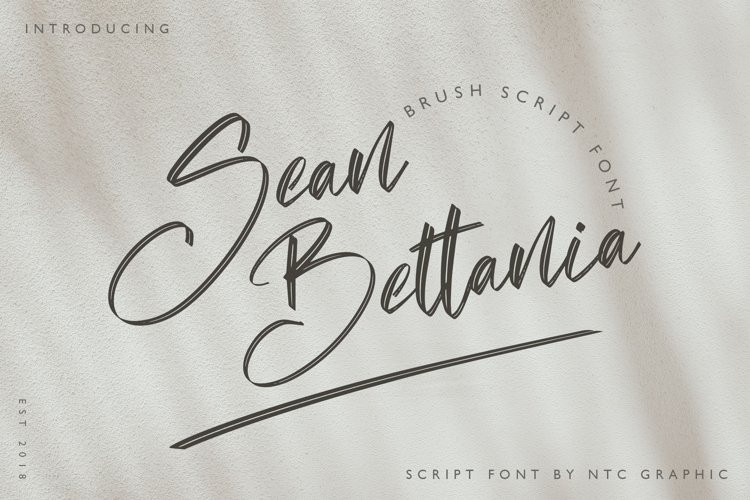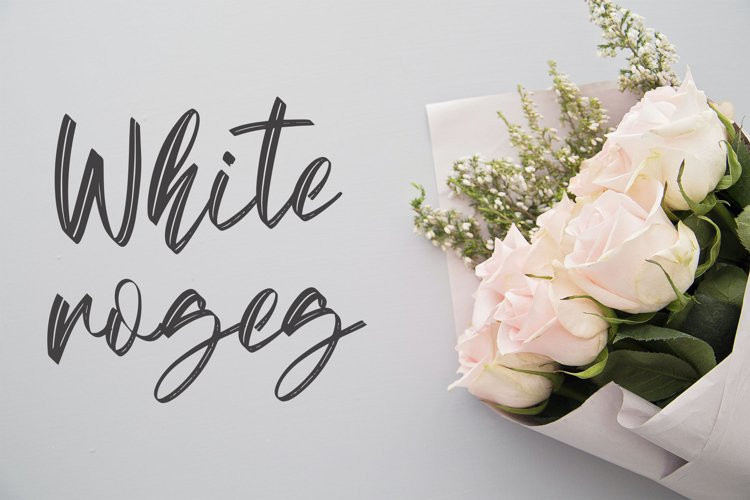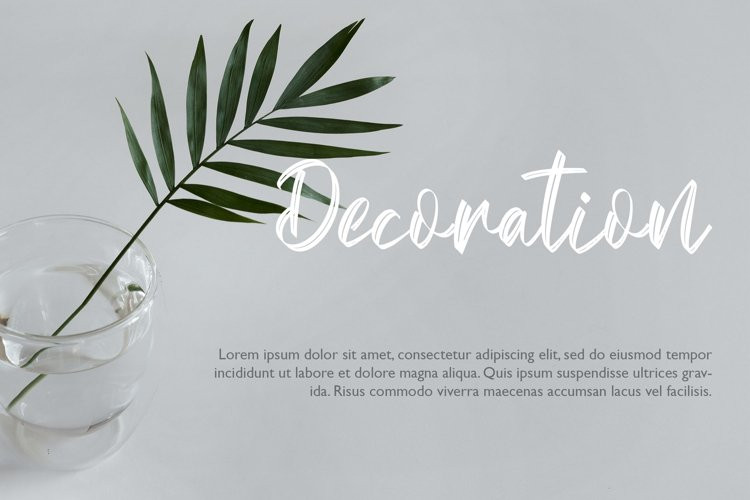
Sean Bettania Font
Sean Bettania FontSean Bettania is a beautiful script font with rough brush style. Is a font style that is made with scratches and curvature brush shapes font characters are very beautiful. Can be applied to support the graphic appearance of the product to be more attractive and unique. This font is suitable for making previews and covers, logo designs, shirt designs and other graphic needs.